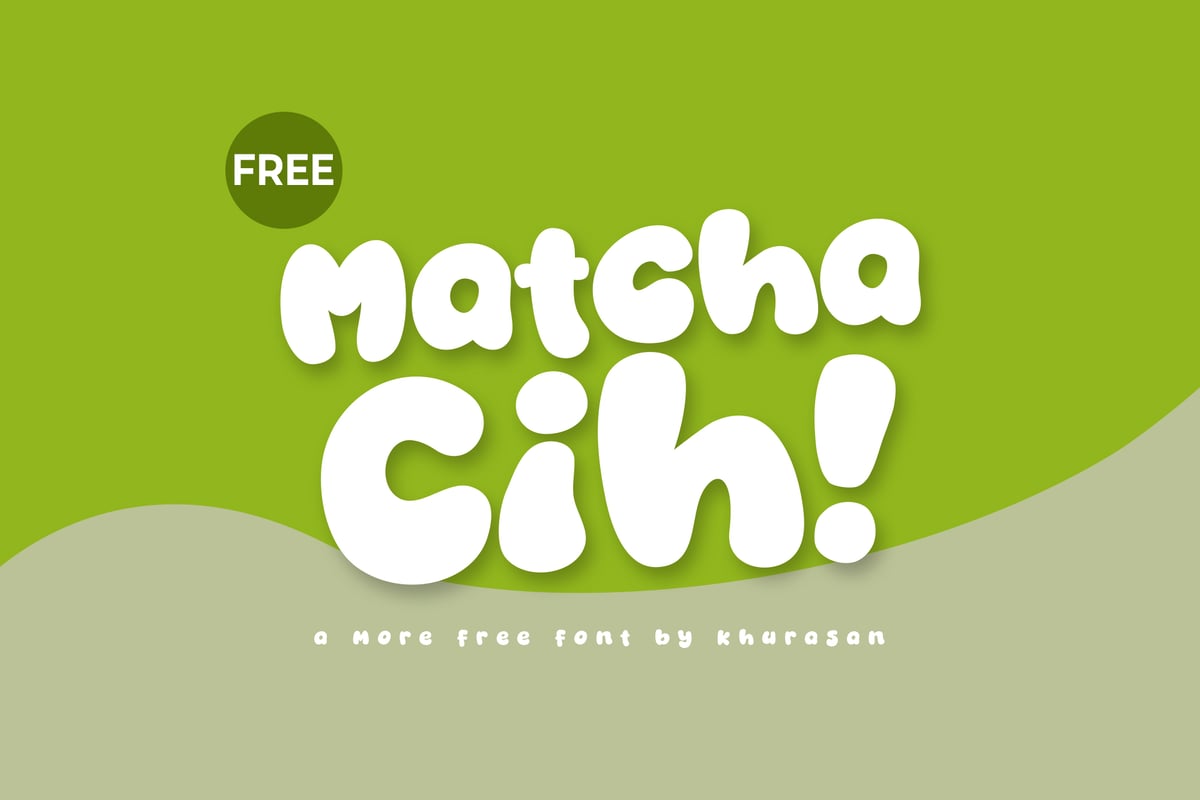
Free Matcha Cih | Playful Multilingual Display Font
Transform your designs with Matcha Cih - the adorably soft display font that brings maximum cuteness to every project. This heavy-weighted display font features gentle curves and a warm, approachable feel that's perfect for creating memorable brand experiences. With complete multilingual support, Matcha Cih ensures your message reaches audiences worldwide while maintaining its charming personality. Ideal applications include eye-catching titles, product packaging, and engaging social media conte...